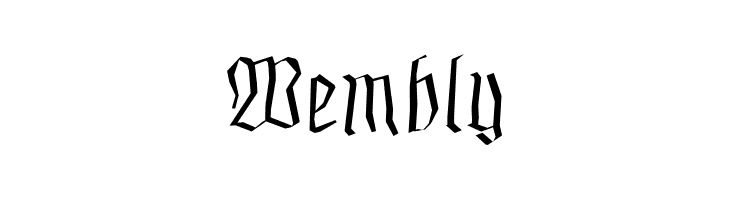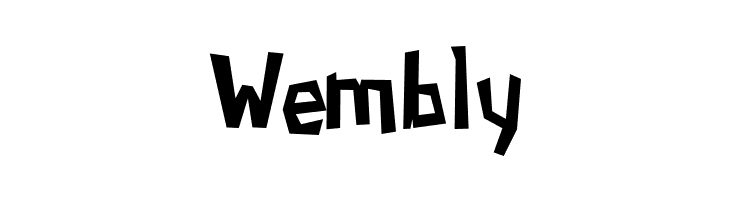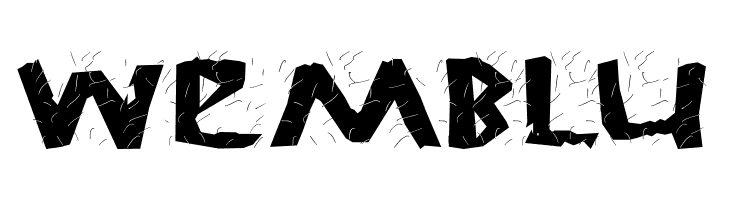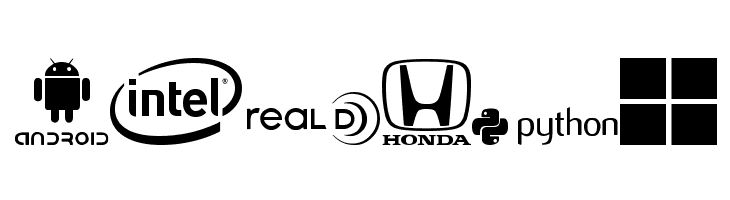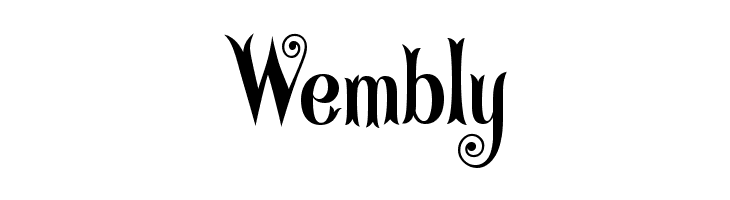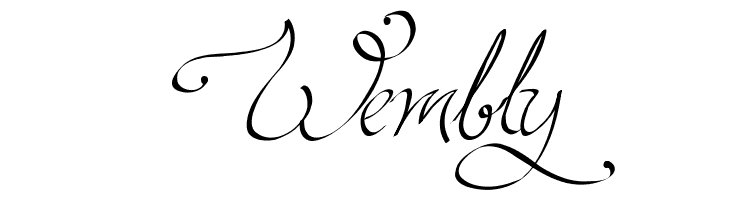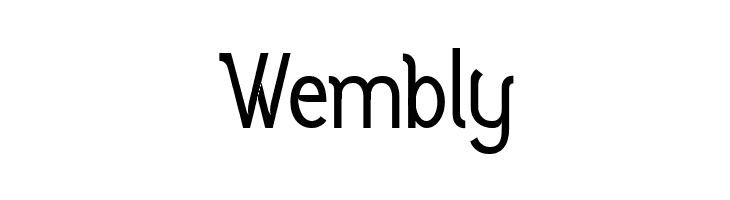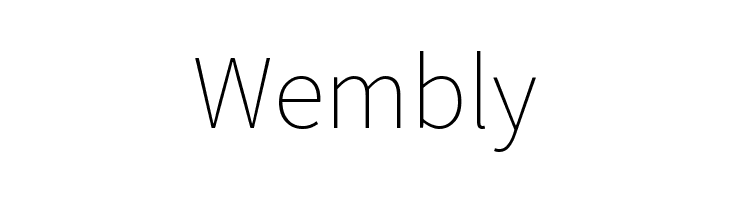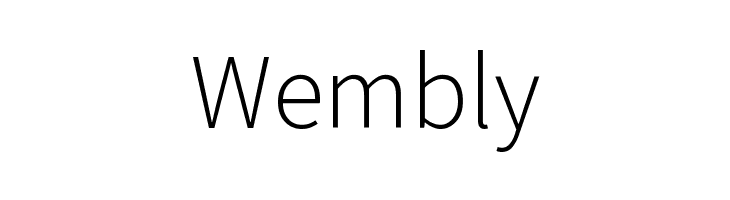
• PittoresqJugendstil
A bold, decorative font inspired by the Jugendstil movement, featuring intricate and artistic letterforms.
• ManFont
An artistic font where letters are formed by human figures in various poses.
• SmallEdgedFrax
A bold, Gothic-style font with sharp, angular edges and a medieval aesthetic.
• EasterAnimalsFour
A playful, decorative font featuring abstract animal-like symbols.
• Paper Cuts 2
( Fonts by Daniel Werneck )
A bold, angular font with a playful, paper-cutout style.
• WoodWud
• Veselka4F
• KochWoodcut
A bold, textured font with a hand-carved, woodcut appearance.
• Samaritan Script 300 B.C.
( Fonts by www.foamtrain.com )
Handwritten, ancient script with organic, flowing forms.
• SilexStencil-Basic
• Logoz-Librariez
A decorative display font mimicking popular brand logos.
• CurlyStars
• Myra4FCaps-Light
A modern, light sans-serif font with a clean and minimalist design.
• Myra4FCaps-Bold
A bold, modern font with thick strokes and rounded edges.
• Myra4FCaps
A versatile sans-serif font with both decorative and bold variations.
• Manic Monday Regular
• Manic Monday Bold
• DEATHLANE
( Fonts by Aly K. Salazar )
A bold, distressed font with a grunge texture and rugged appearance.
• Delusional
( Fonts by Aly K. Salazar )
A playful, hand-drawn font with a sketch-like texture and bold outlines.
• Persifal
An elegant script font with intricate swashes and high contrast strokes.
• Persifal Pen
An elegant, flowing script font with ornate swashes and high contrast.
• Vercingétorix Regular
A modern geometric font with clean lines and a balanced design.